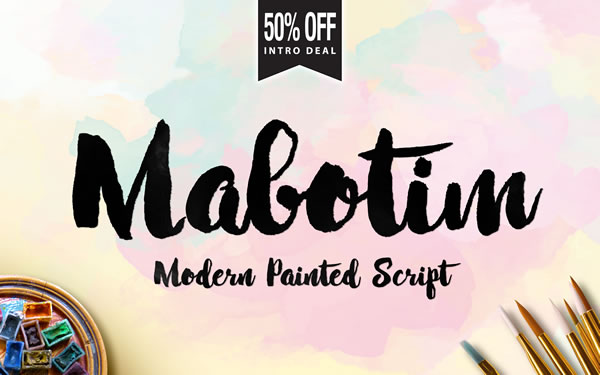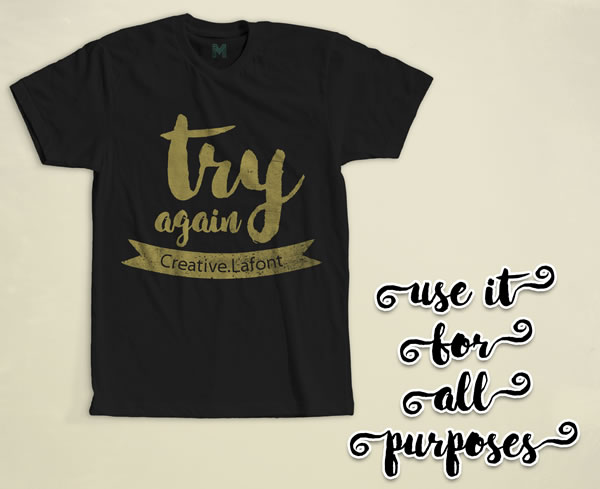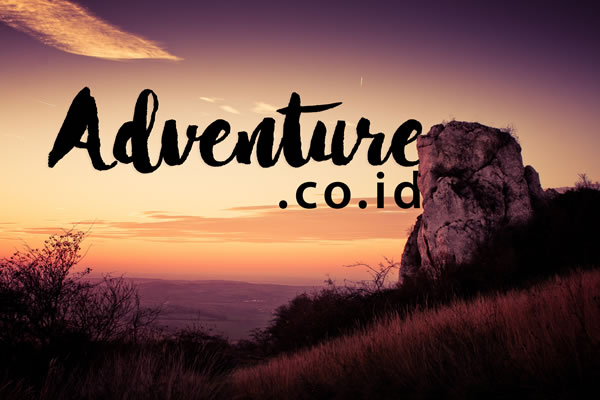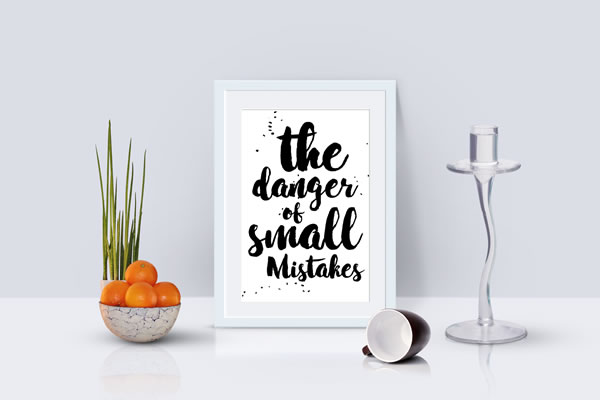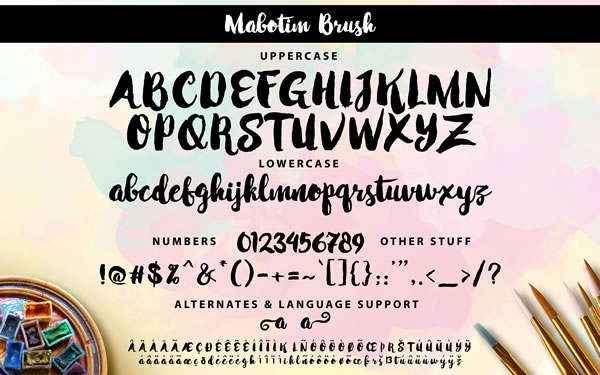
HomeScript FontsMabotim Brush Font Script Fonts Mabotim Brush Font FacebookXPinterestWhatsApp Mabotim Brush Font Poster 2 Mabotim Brush Font Poster 3 Mabotim Brush Font Poster 4 Mabotim Brush Font Poster 5 About Mabotim Brush Font The Mabotim Brush font is a hand-painted font. It has a fun and playful, yet modern look. DOWNLOAD NOW People also explored Aloved Fortnite Font Gumbo Twisted System Oystersvelt Font Natural Font Antique Christmas Font Fair Love Font Battle War Font 322 0 TagsMabotim Brush Font Previous articleWashi FontNext articleBaline Script Font LEAVE A REPLY Cancel reply Comment: Please enter your comment! Name:* Please enter your name here Email:* You have entered an incorrect email address! Please enter your email address here Website: Save my name, email, and website in this browser for the next time I comment. Personal Use Free Zalitta Personal Use Free Read more about this font Zeshane Personal Use Free Read more about this font Jilliant Personal Use Free Read more about this font Klotee Personal Use Free Read more about this font BLOG Using Fonts in Digital Marketing: Tips to Strengthen Your Brand Identity In the realm of digital marketing, every visual element plays a crucial role in shaping a brand's identity, and fonts are no exception. The... Best Fonts for YouTube Videos: Make Your Thumbnails Stand Out To increase your work productivity, choose the most readable fonts. Modern Sans-Serif Fonts That Brands Love in 2025